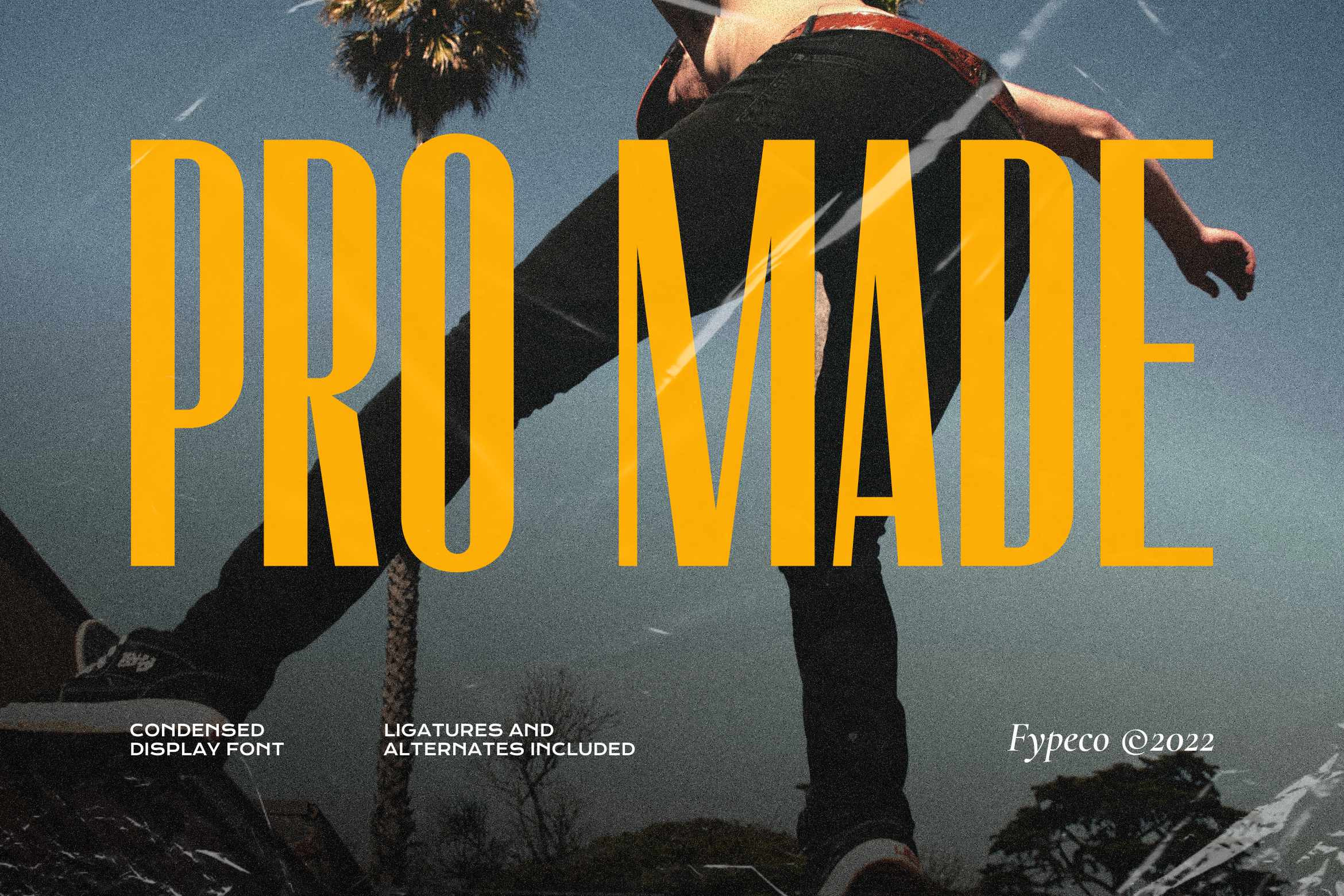
Pro Made - Condensed Display Font
Pro Made is condensed display font. It's a unique font that will grab the attention. It is perfect for headlines, billboards, magazines, websites, titles, posters, branding, and logos. With lot of ligatures, alternates, and other features to choose from, you can make your project stand out.